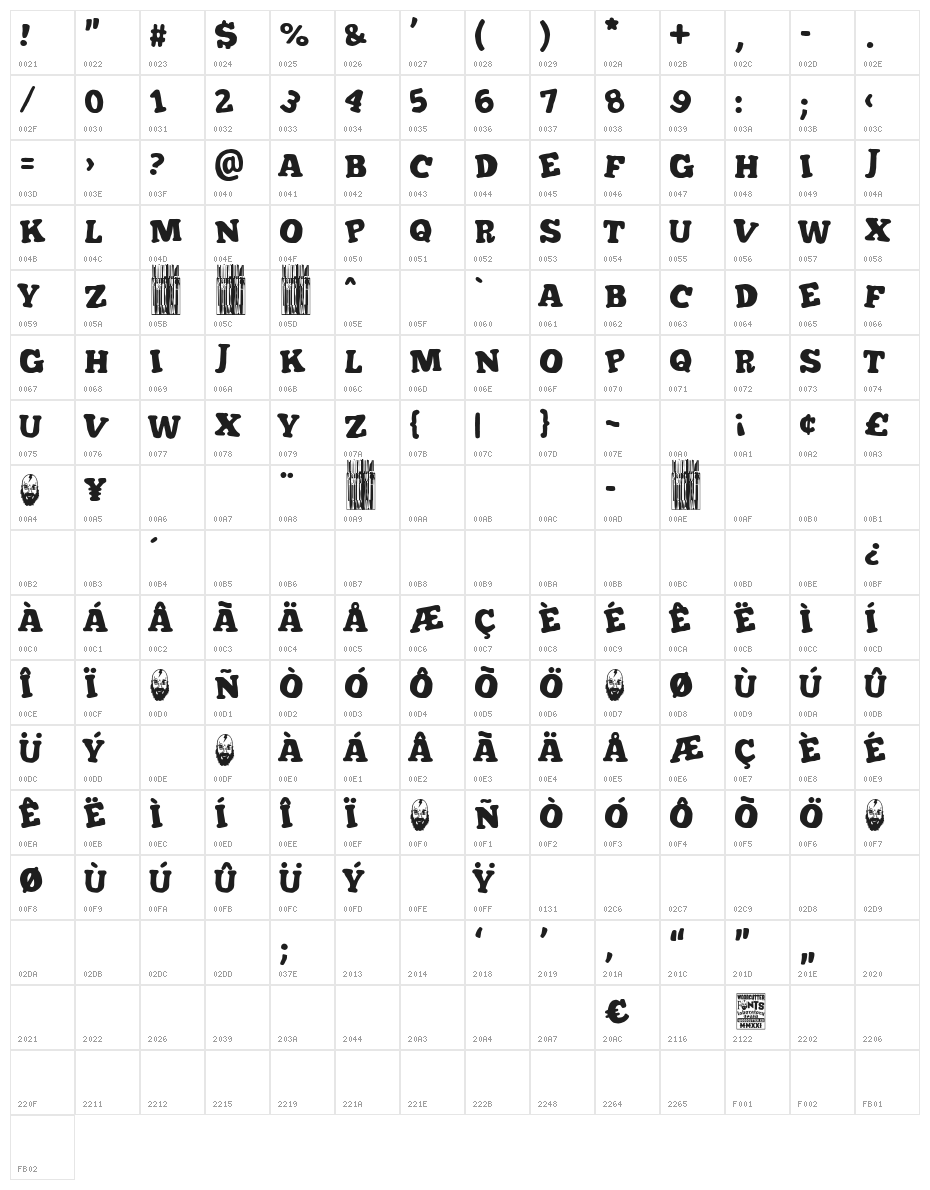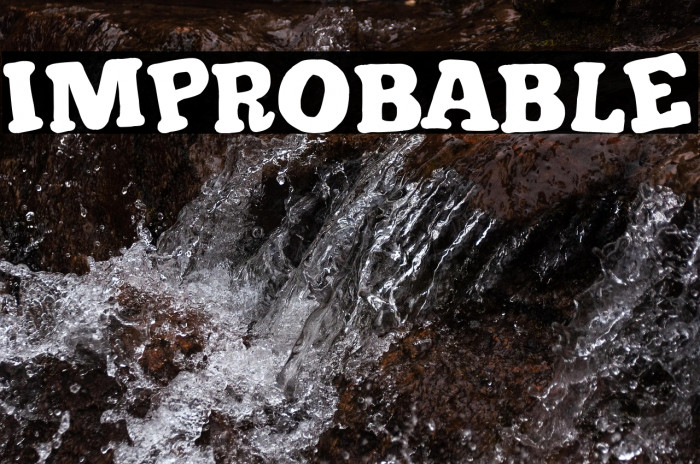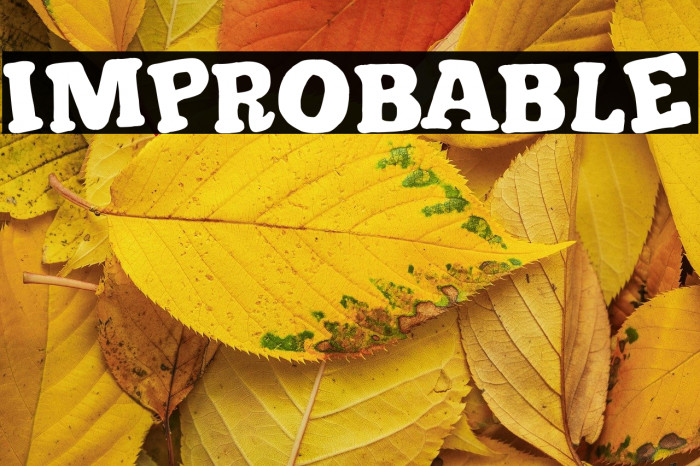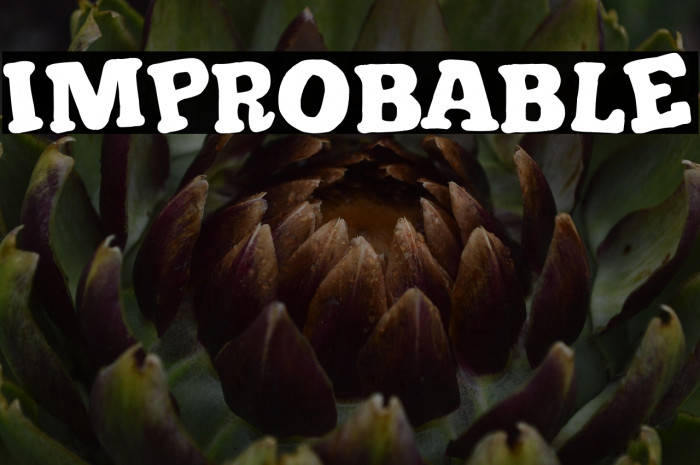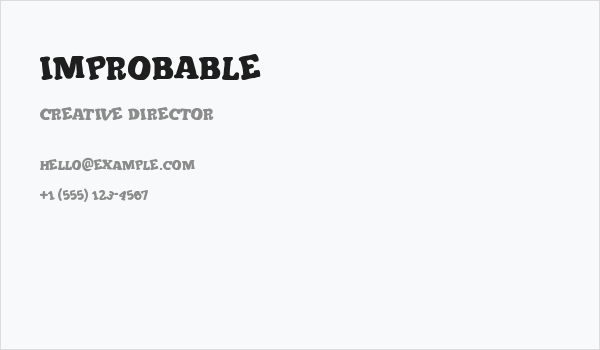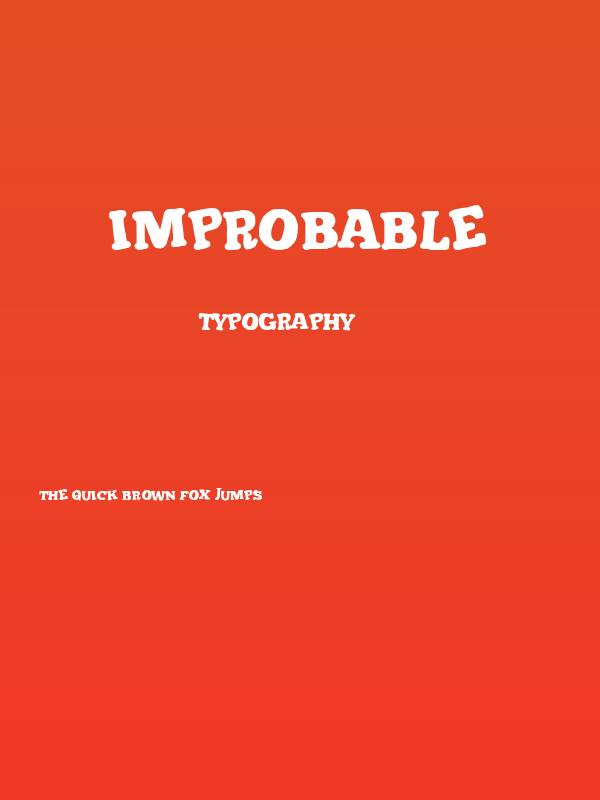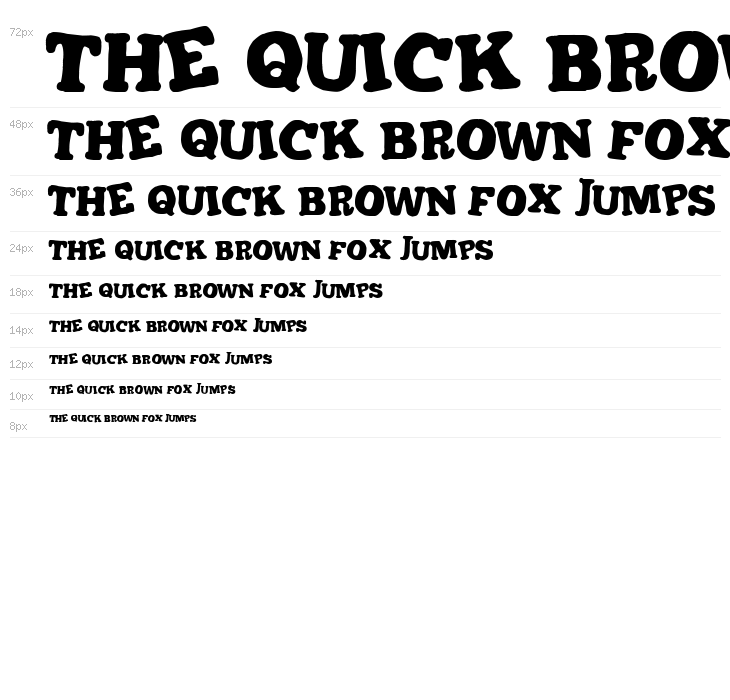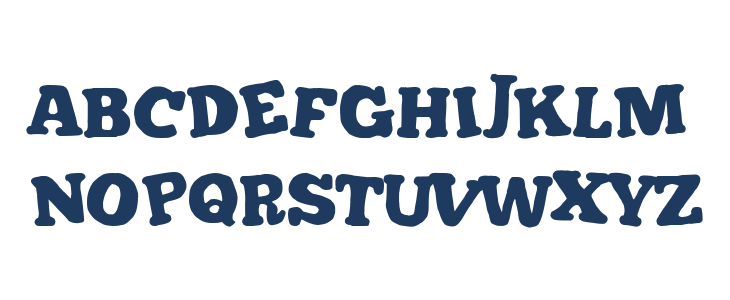
Improbable Font
Improbable Description
This font features a playful and bold design with exaggerated curves and a slightly uneven baseline, giving it a whimsical and dynamic appearance. The characters are thick and rounded, creating a sense of fun and energy. The uppercase and lowercase letters maintain a consistent style, with the lowercase letters being slightly smaller but equally bold. The numbers and special characters follow the same playful design, making them stand out. This font is ideal for projects that require a lively and eye-catching typeface.
| Overall Style | Playful, Whimsical |
| Proposed Projects | Perfect for children's books, playful branding, party invitations, and eye-catching posters. |